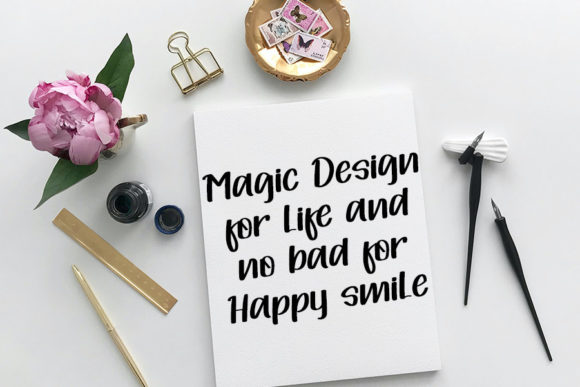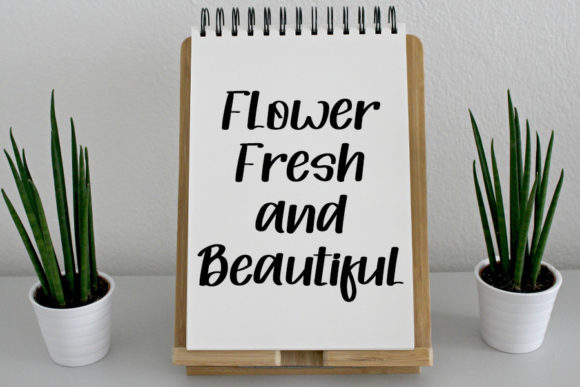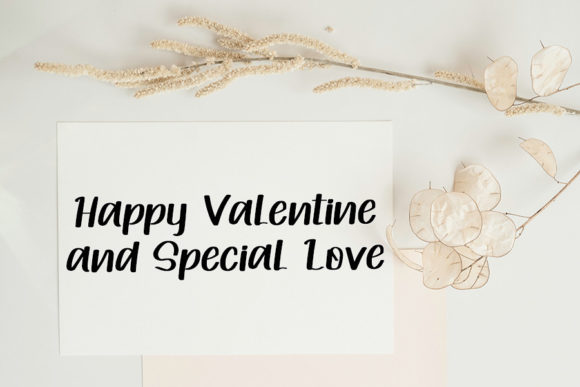
Mountain Adventure Font
About Mountain Adventure Font
Mountain Adventure is a clean and friendly handwritten font that brings a sense of warmth and approachability to your designs. With its clear and legible letterforms, this font is versatile and suitable for a wide range of applications. Whether you’re using it on busy backgrounds or as a standalone headline, Mountain Adventure is sure to make a statement.
The font’s clean and neat appearance makes it highly readable, ensuring that your message is easily conveyed to your audience. Its friendly and inviting style adds a touch of personality and charm to your designs, making them more engaging and relatable. Whether you’re creating posters, social media graphics, website headers, or any other design project, Mountain Adventure will captivate viewers and draw them in.
Mountain Adventure is well-suited for both print and digital platforms. Its versatility allows it to shine in various contexts, from branding materials to editorial layouts. Whether you’re designing for a travel agency, outdoor adventure brand, or any project related to nature and exploration, Mountain Adventure complements the theme and enhances the visual appeal of your designs.
The font’s clean and clear letterforms make it suitable for different sizes and scales. It remains highly legible even when used in smaller sizes, ensuring that your message is easily readable. Whether you’re using it for headlines, subheadings, or body text, Mountain Adventure maintains its visual impact and readability.
One of the strengths of Mountain Adventure is its ability to stand out in various design settings. Whether you’re placing it on busy and vibrant backgrounds or using it as a standalone element, it grabs attention and adds a touch of personality to your designs. Its friendly and approachable style creates a welcoming atmosphere and encourages interaction with your content.
In summary, Mountain Adventure is a clean and friendly handwritten font that excels in readability and versatility. Its clean letterforms and friendly style make it suitable for a wide range of applications, whether in print or digital designs. Whether you’re using it on busy backgrounds or as a standalone headline, Mountain Adventure is sure to make a memorable impression.